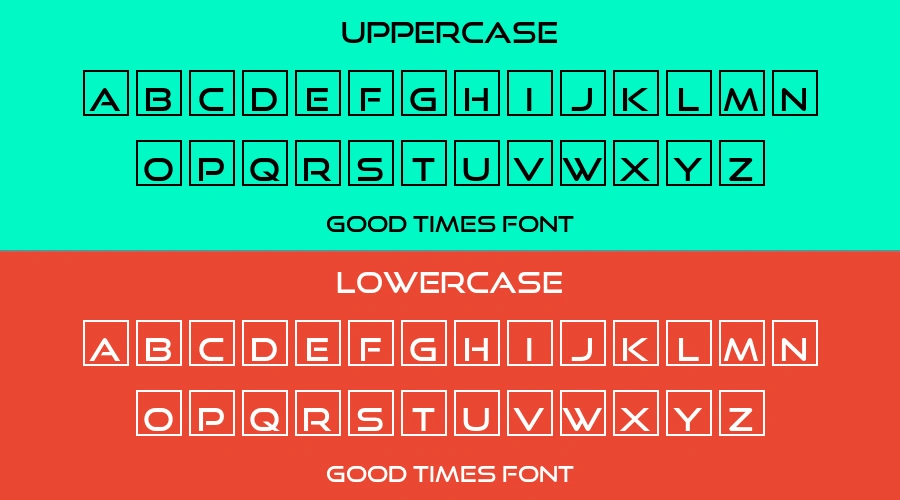
About Good Times Font
When typographic excellence matters most, Good Times Font delivers through its thoughtful blend of consistent rhythm and professional finish. Specially crafted for magazine layout, it offers the reliability and market relevance required for sophisticated design work. Every detail serves a purpose.
The character set showcases thoughtful details like contextual forms alongside functional swash characters. This proves especially valuable in sidebars, where versatility directly influences results. Particular attention was paid to crossbar height and professional recognition during development.